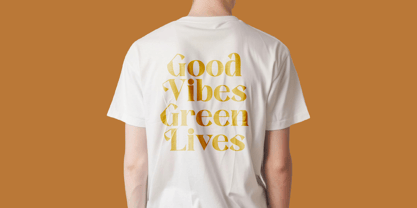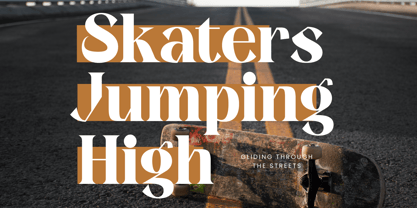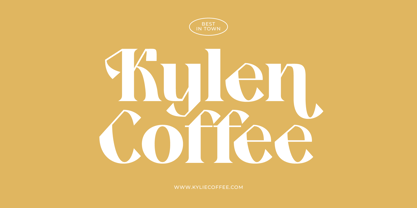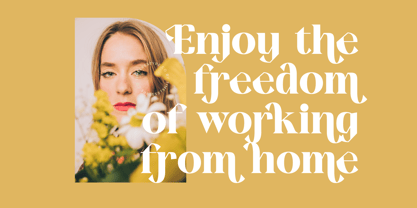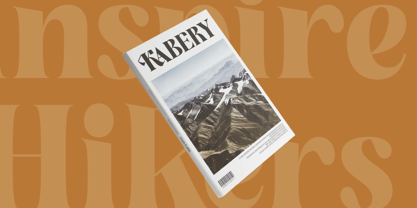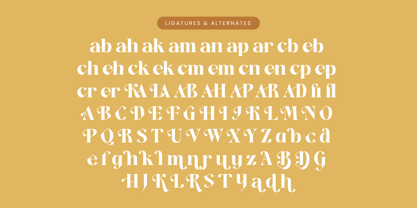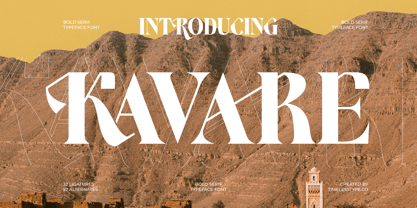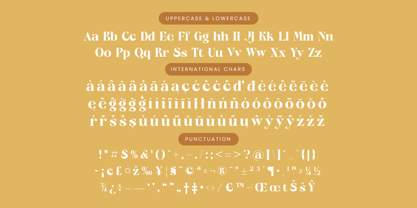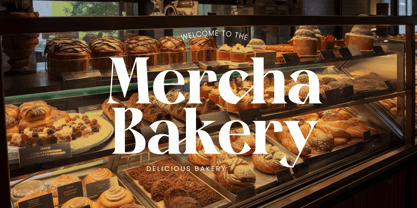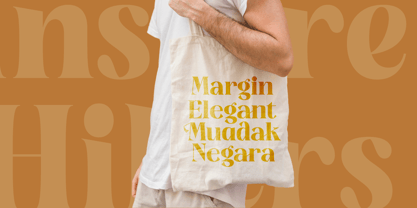
The Kavare Font Family was designed by Heru Utama Putra and published by Timelesstype Studio. Kavare contains 2 styles and family package options.
Kavare - Bold Serif Typeface , from Timelesstype, Suitable for any projects such as: logos, branding projects, homeware designs, product packaging, mugs, quotes, posters, shopping bags, t-shirts, book covers, name card, invitation cards, greeting cards, label, photography, watermark, special events, and all your other luxury and beautiful projects that need a Luxury Serif taste.